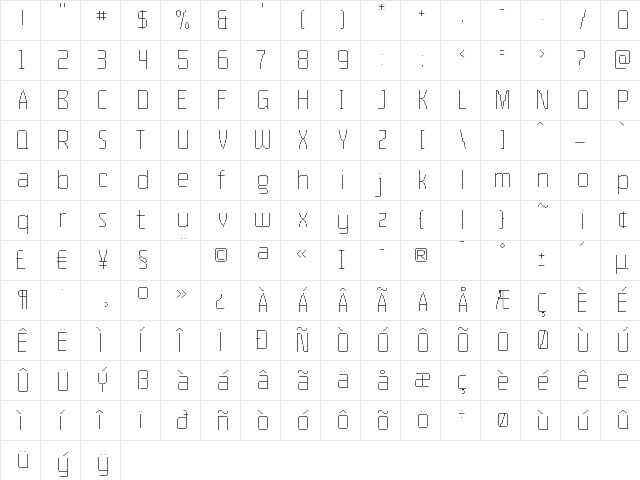
Pro55 Light
Design Context for Pro55 Typeface
Pro55 takes a measured approach to typography — its balanced proportions and neutral character make it a reliable workhorse for both digital and print work. The delicate stroke weight brings airiness and refinement to layouts.